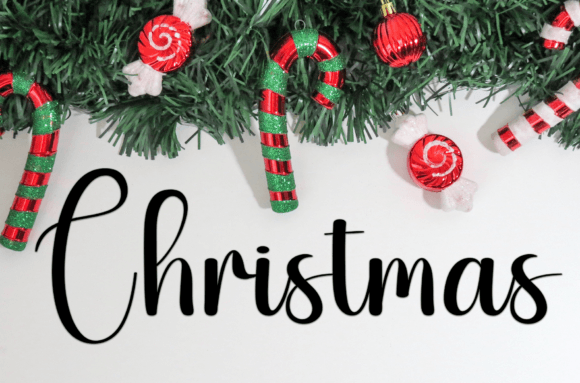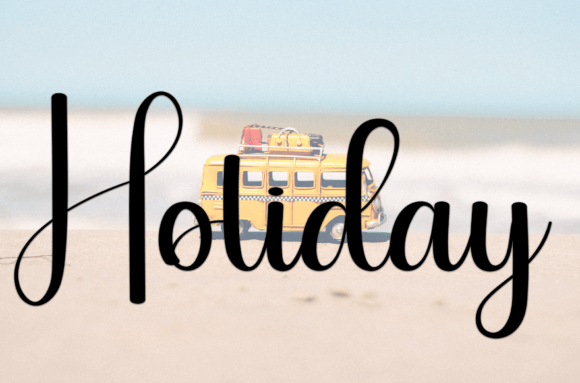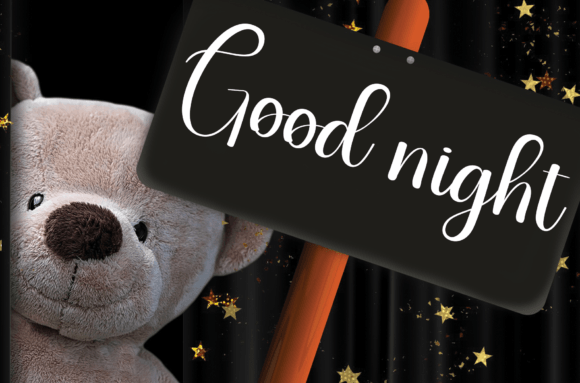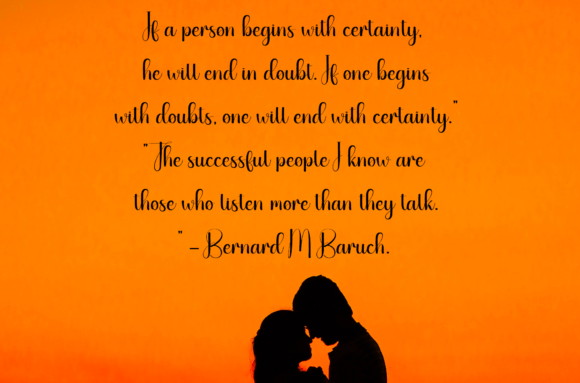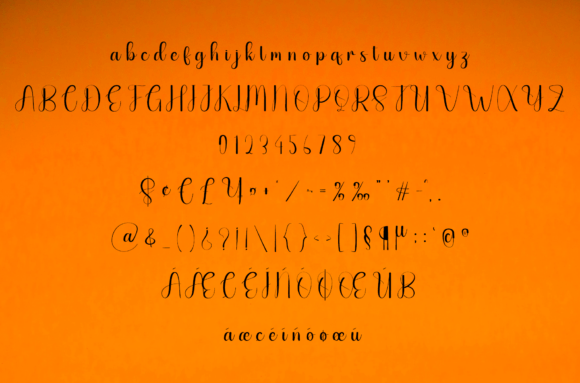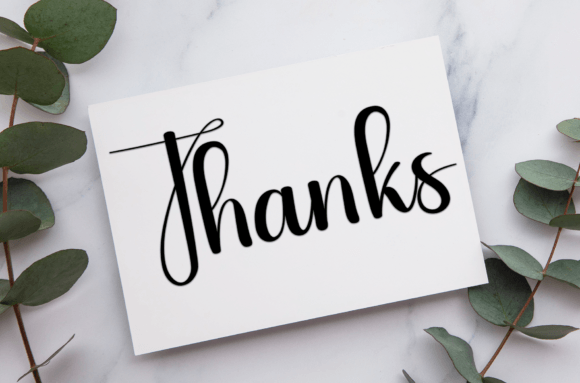
Introduction to Reveille Font
Have you ever stumbled upon the perfect font for a creative project, only to feel a rush of excitement and relief? That’s exactly what happens when you discover the Reveille Font. This sweet and friendly handwritten font is a game-changer for designers looking to add a joyful touch to their designs.
As a designer, you know the importance of having high-quality design resources at your fingertips. Reveille Font fits the bill, with its elegant and cursive script that’s perfect for writing wedding invitations, cards, or any other design that needs a personal touch. Plus, with a transparent background, you can easily integrate it into your design without any hassle.
Key Features of Reveille Font
- Features a clean and modern design aesthetic, suitable for a wide range of creative projects, from logos to digital interfaces.
- Perfect for designers looking for a unique and eye-catching font to elevate their creative project.
Honest Review: Reveille Font
As a designer, I’m always on the lookout for high-quality fonts that can elevate my creative projects. The Reveille Font has caught my attention, and I’m excited to share my thoughts on it.
- Unique and elegant design: The Reveille Font has a distinctive and stylish look that can add a touch of sophistication to any design project.
- Transparent background: The font’s transparent background makes it easy to use in complex designs without overwhelming the viewer.
- Limited font variations: While the Reveille Font has a beautiful design, it’s available in limited font variations, which might not be ideal for designers who need a wide range of styles.
- Not suitable for large text: Due to its elegant design, the Reveille Font might not be the best choice for large text, as it can become difficult to read.
Overall, the Reveille Font is a great design resource for designers who are looking for a high-quality, elegant font for their creative projects. While it has some limitations, its unique design and transparent background make it an excellent choice for designers who want to add a touch of sophistication to their work.
The Reveille Font is a versatile design resource that can be used in various creative projects, including logos, brochures, and business cards. It’s perfect for designers who need a high quality font with a transparent background.